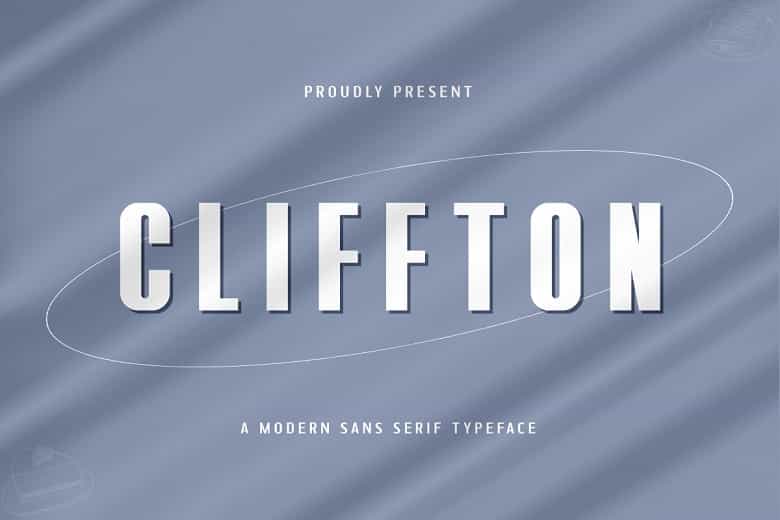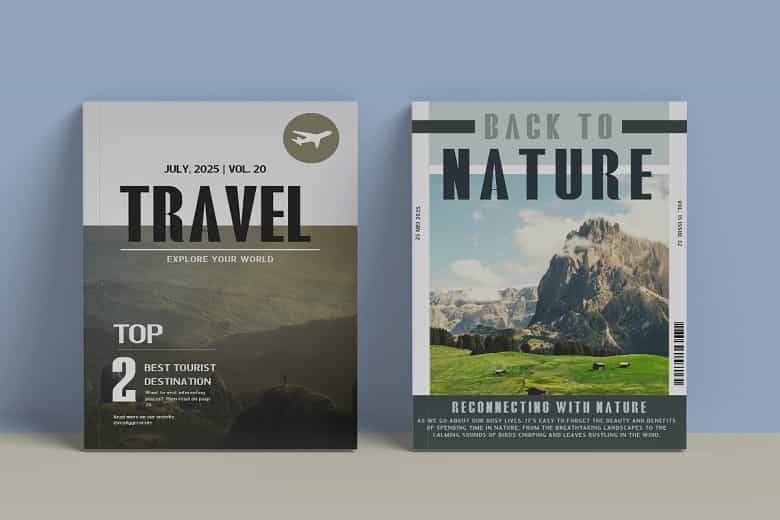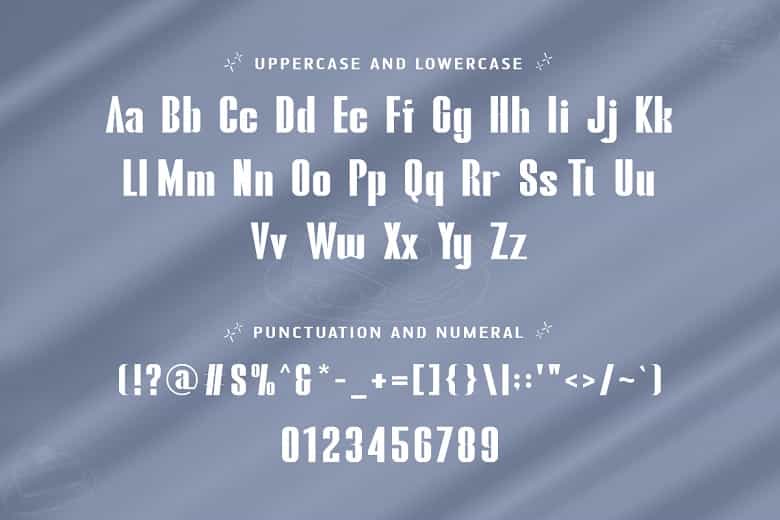
Cliffton is a new modern sans serif font with elegant and simple style together with the thick modern font look. This font is one of those fonts that give you choice for those people who are in a look out for a sans serif font. Different from the other fonts, the Cliffton Font does not have any additions of letters. It is a simple font that helps in differentiating one letter from another the other easily.